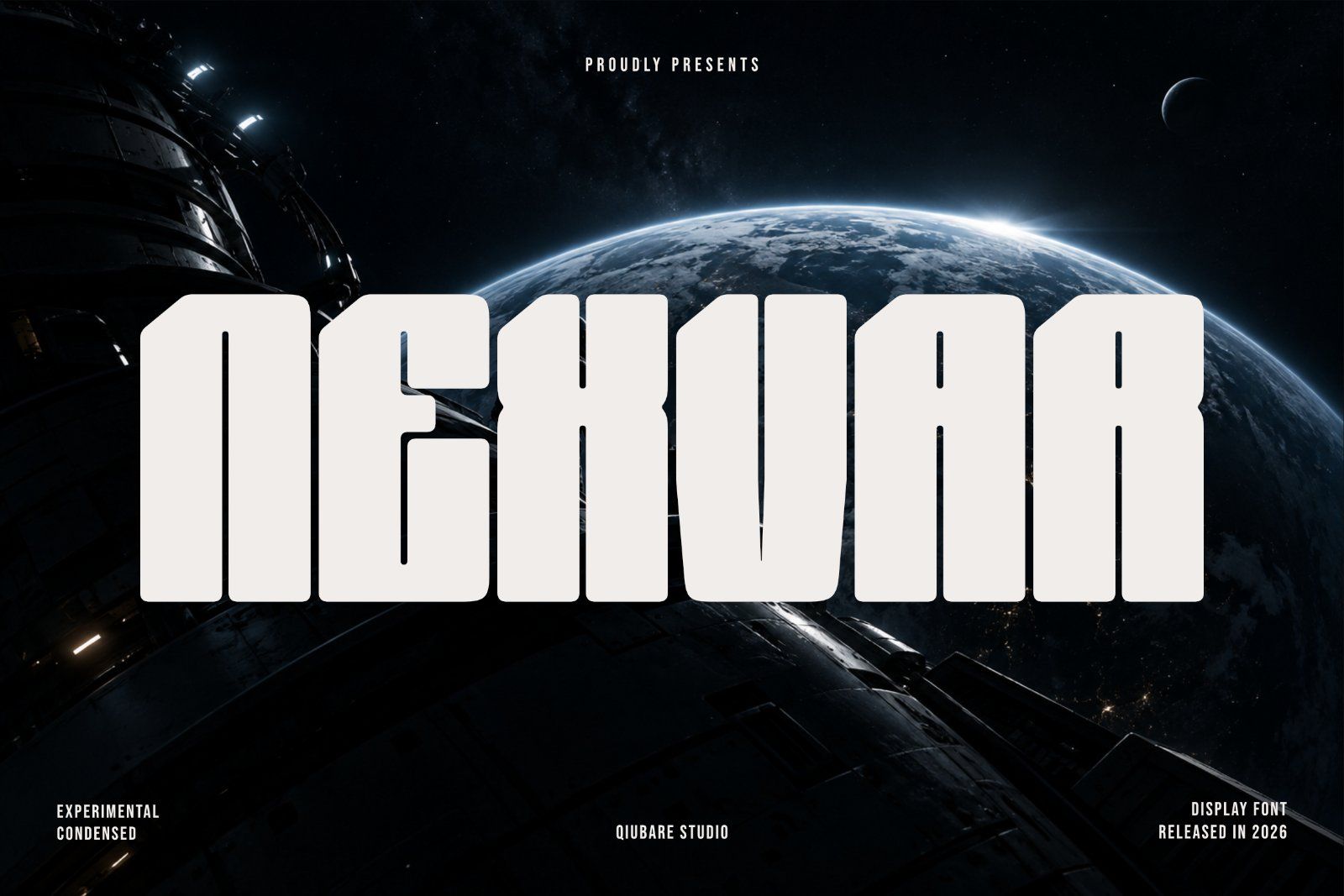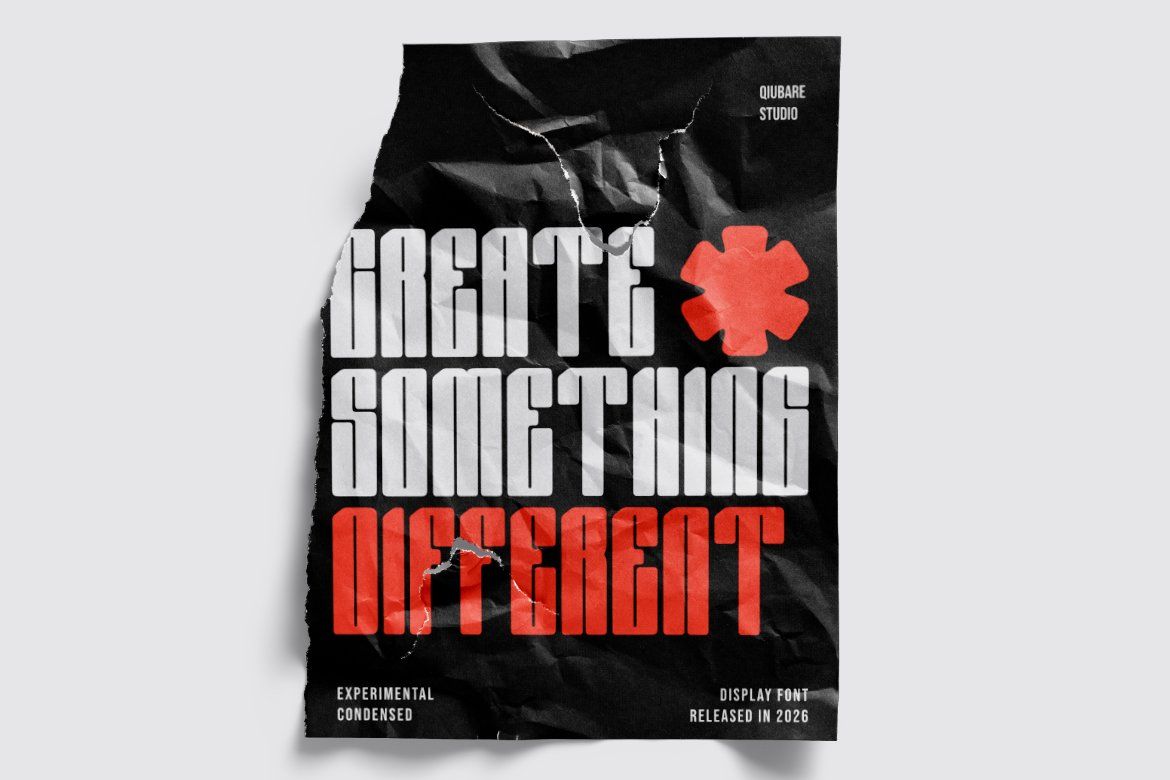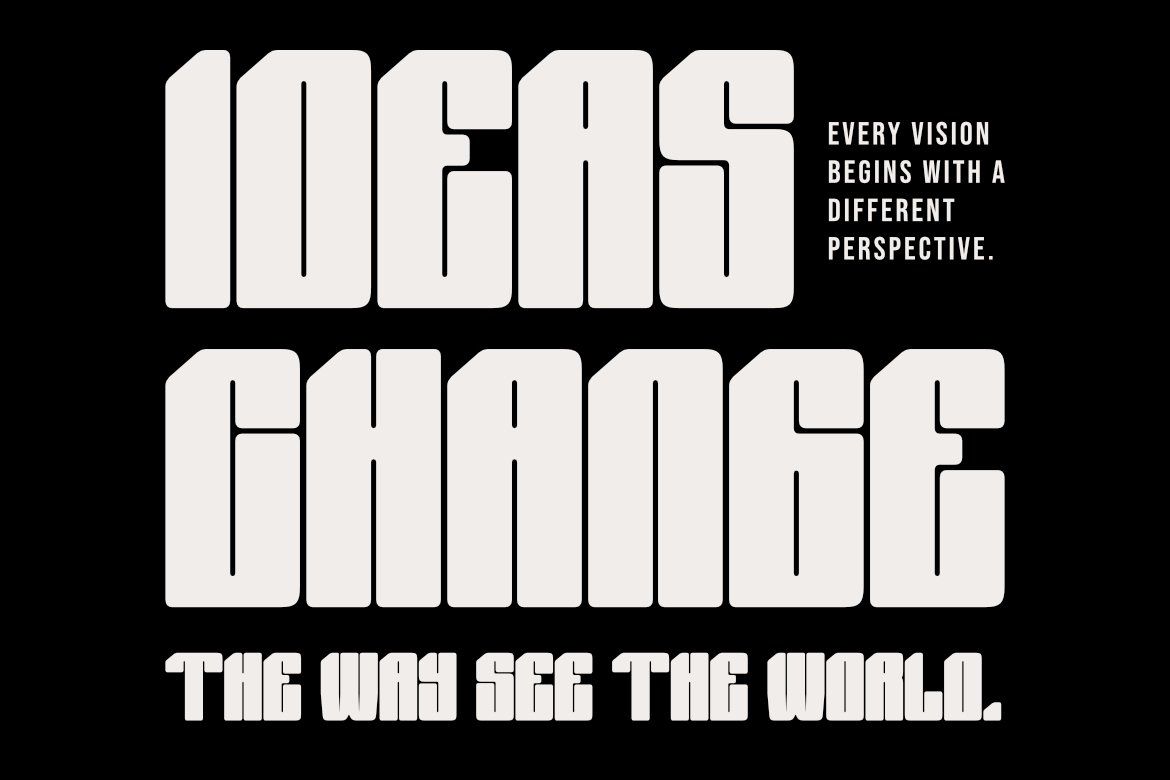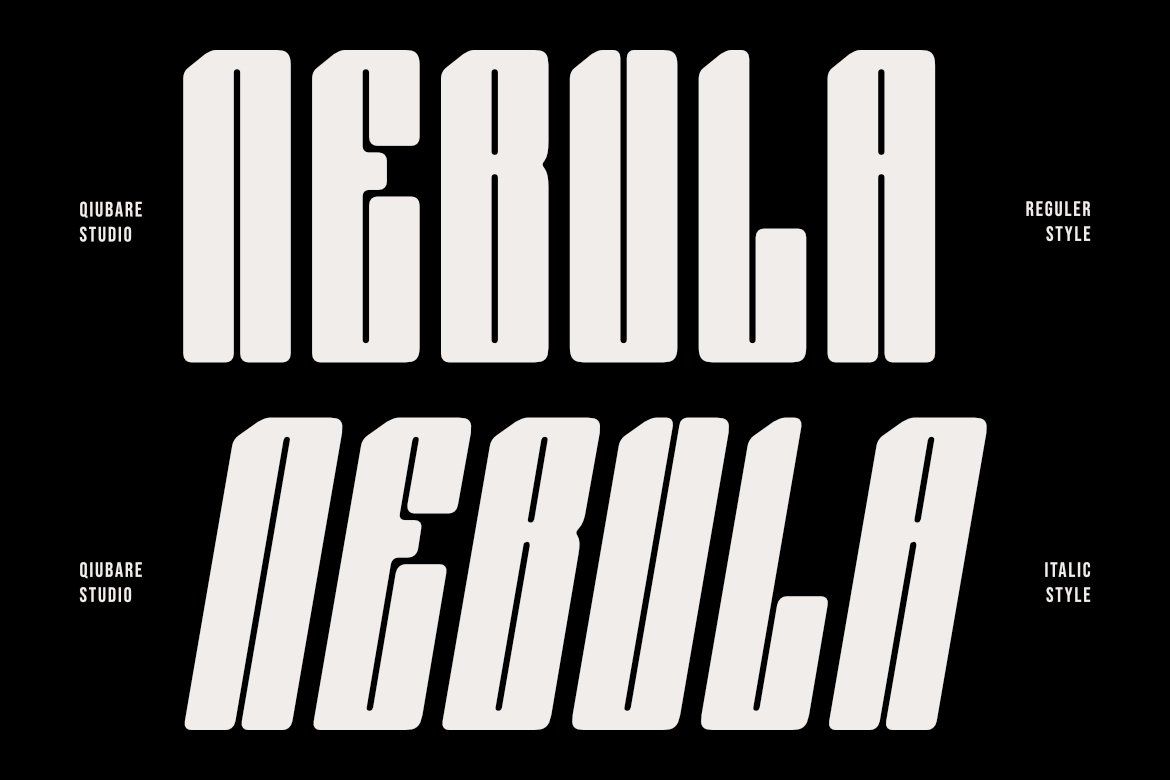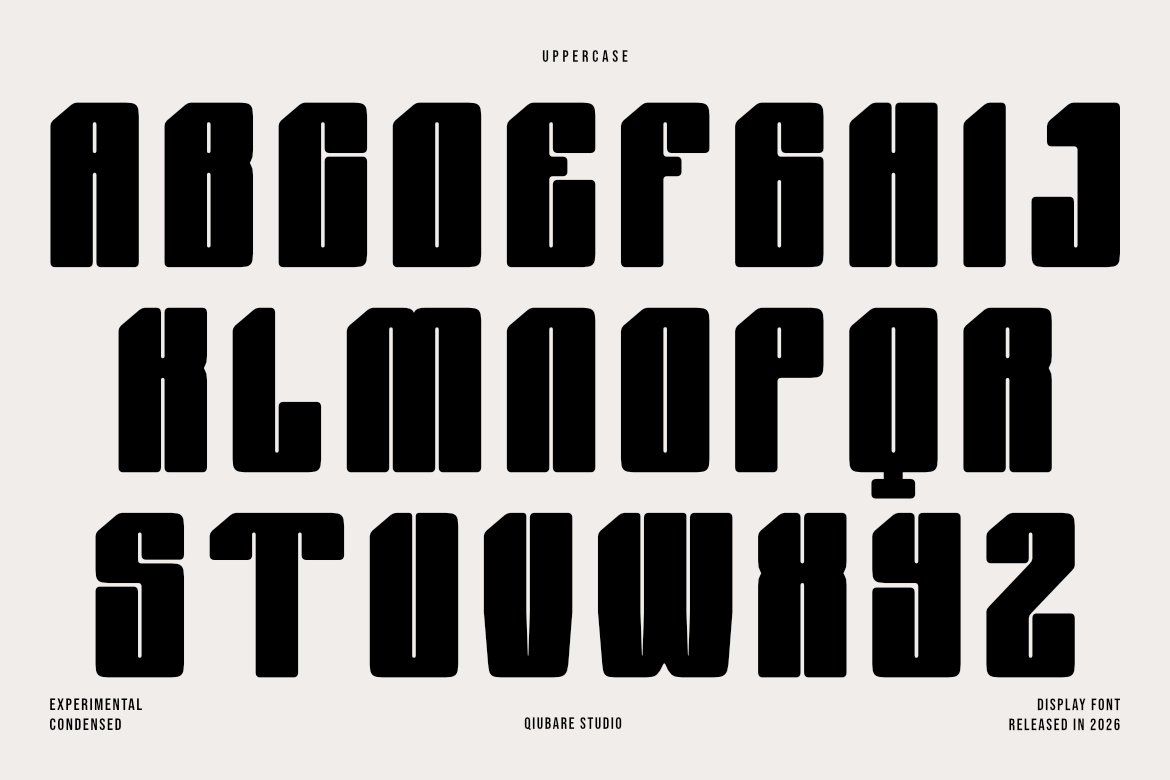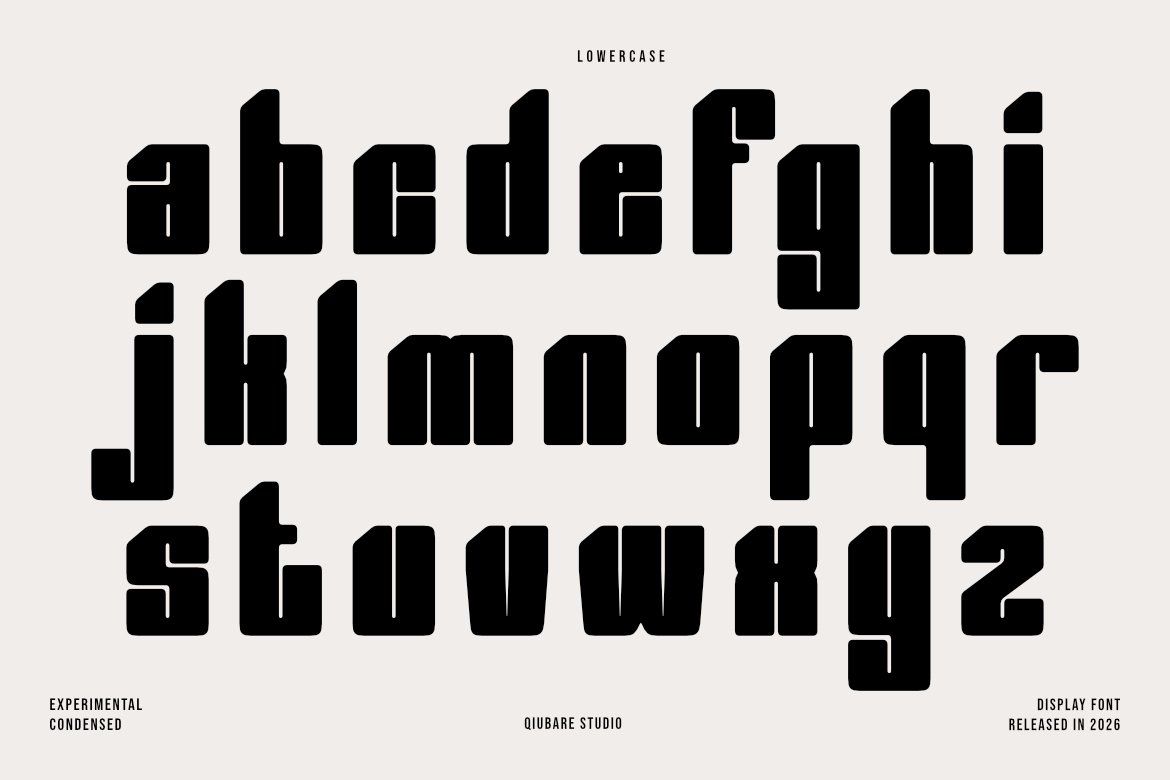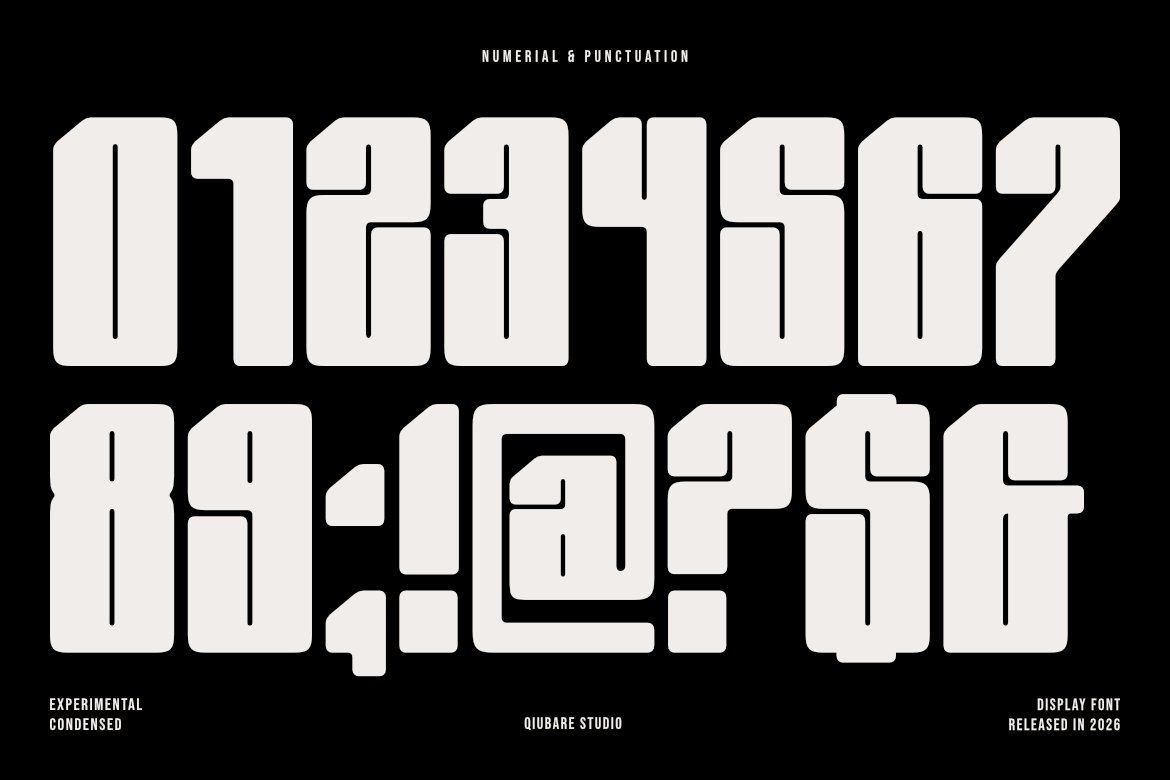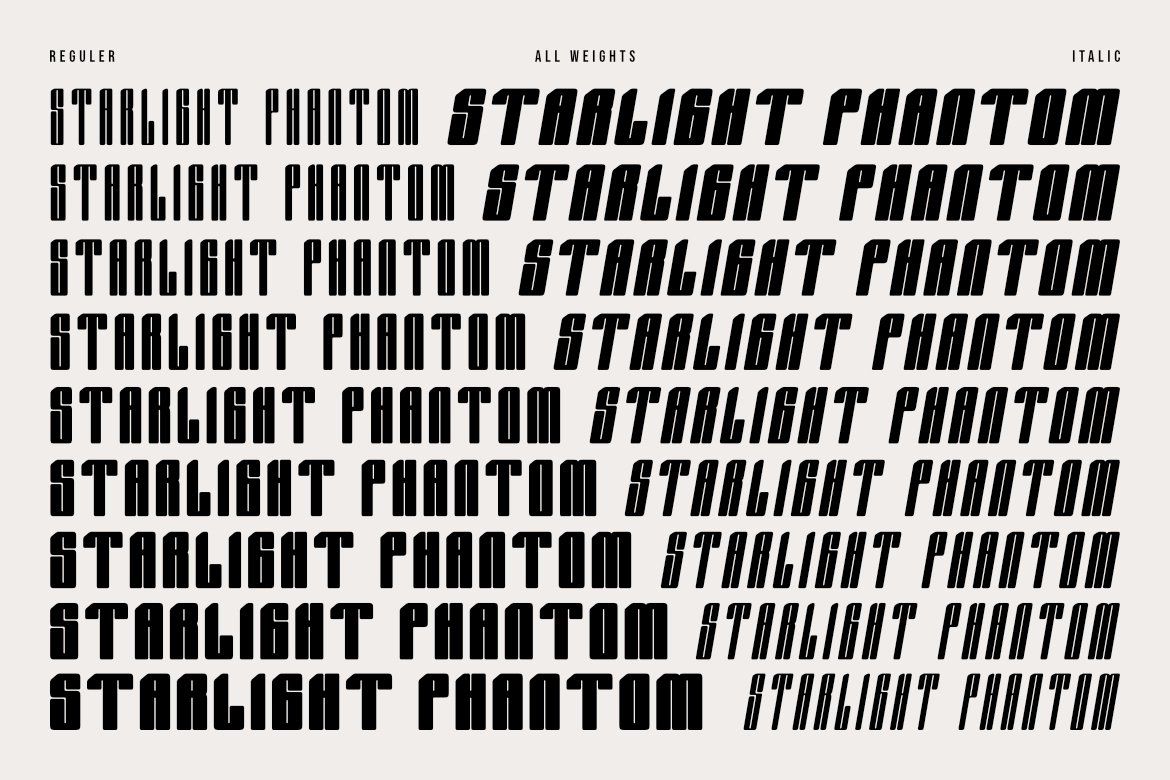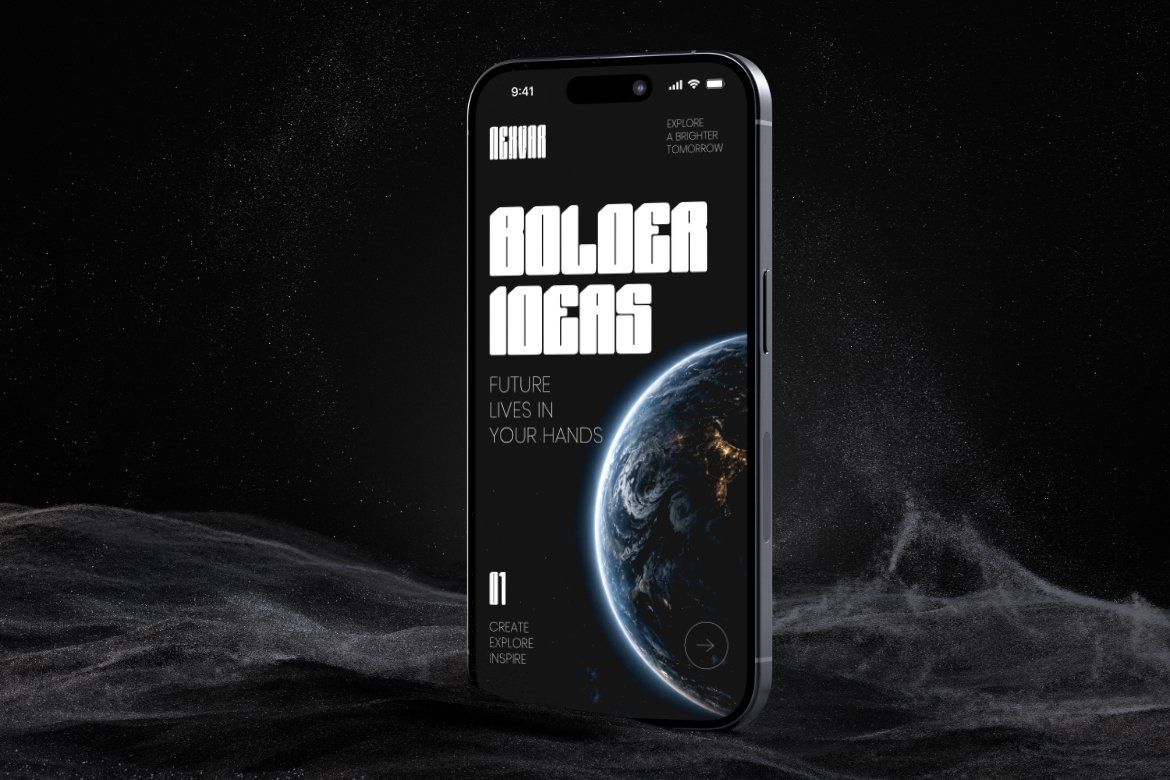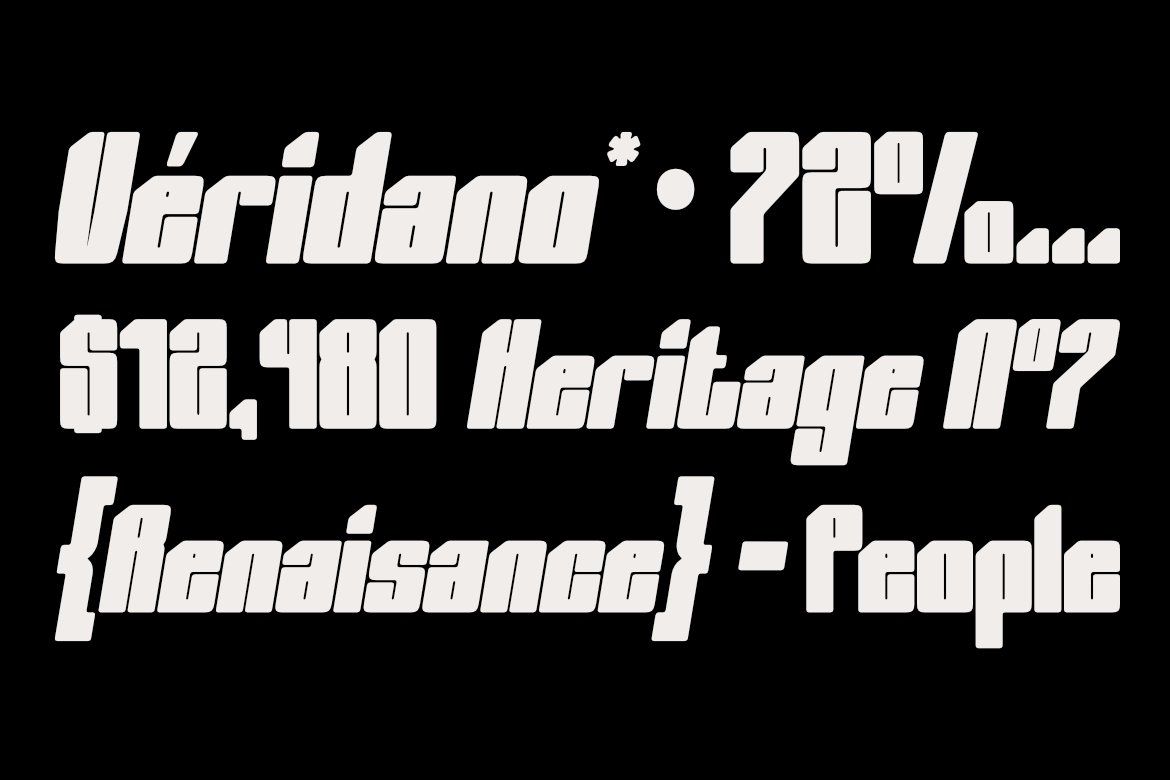
Cyberpunk font NEXVAR is an experimental condensed display typeface built for bold futuristic and high-impact visual communication. Its tall proportions, geometric construction, sharp cuts, and industrial character make it suited to sci-fi, gaming, technology, branding, and display design.
NEXVAR is designed to make a strong statement at large sizes while maintaining a controlled, structured appearance. Regular and Italic styles provide flexibility for dynamic headlines and contrasting layouts.
Features
• Experimental condensed display design
• Futuristic geometric construction
• Regular and Italic styles
• Uppercase and lowercase
• Numerals and punctuation
• Designed for large display sizes
• Suitable for headlines, titles, and branding
Perfect For
• Sci-fi branding
• Futuristic posters
• Cyberpunk artwork
• Gaming graphics
• Esports branding
• Film and movie titles
• Album covers
• Editorial headlines
• Technology branding
• Fashion campaigns
• Event posters
• Product packaging
• Motion graphics
• Logotypes and wordmarks
• Experimental typography